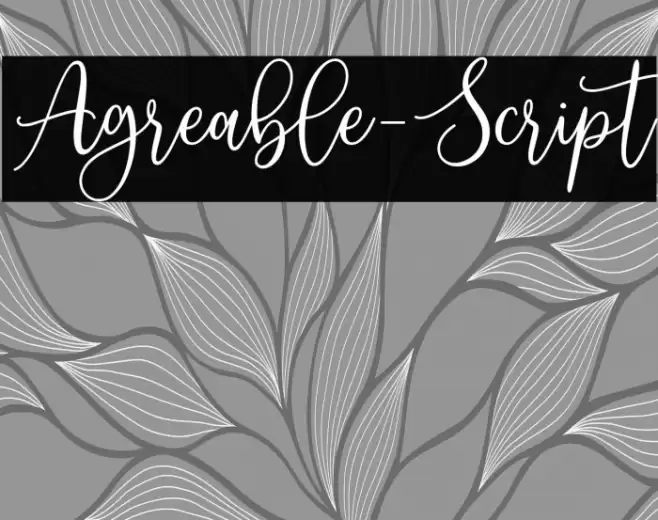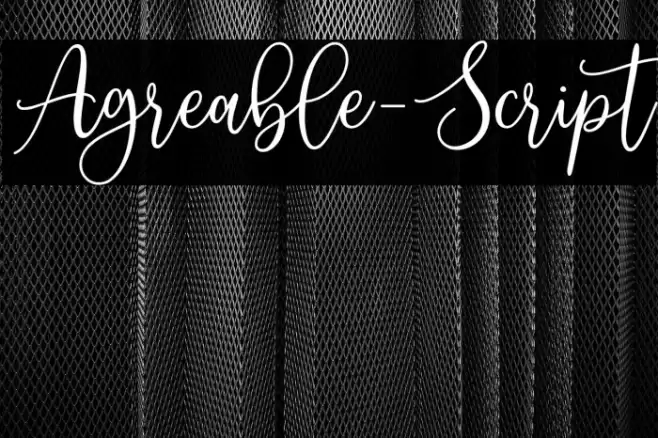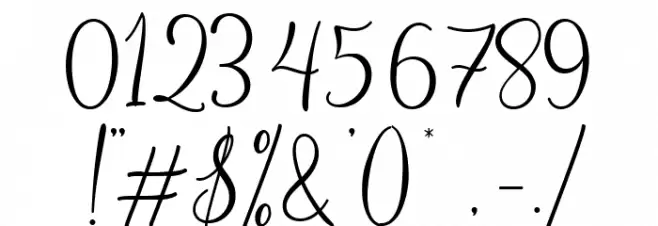
Agreable-Script Font
Agreable-Script Description
This font exudes elegance and fluidity, characterized by its flowing script style that mimics the natural movement of handwriting. The letters are connected with graceful curves and loops, creating a sense of continuity and harmony. The uppercase letters are particularly ornate, with extended swashes and flourishes that add a touch of sophistication. The lowercase letters maintain a consistent rhythm, enhancing readability while retaining the decorative appeal. The numerals and special characters are designed to complement the overall aesthetic, ensuring a cohesive look across all text elements. This font is perfect for projects that require a personal, artistic touch.
A flowing, elegant script font with ornate uppercase and harmonious lowercase letters from Regular fonts.